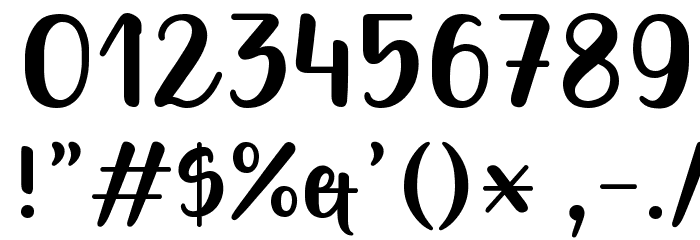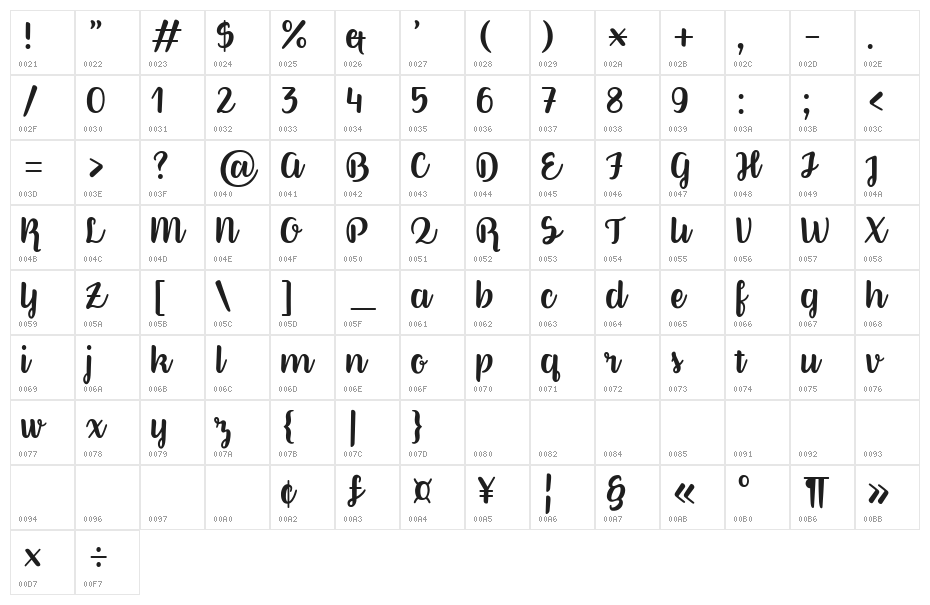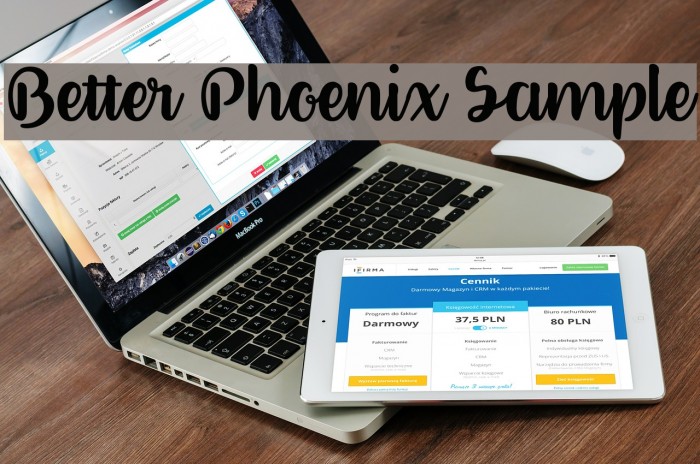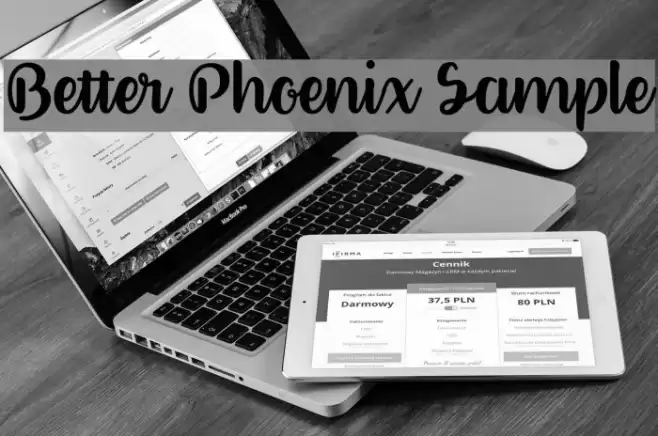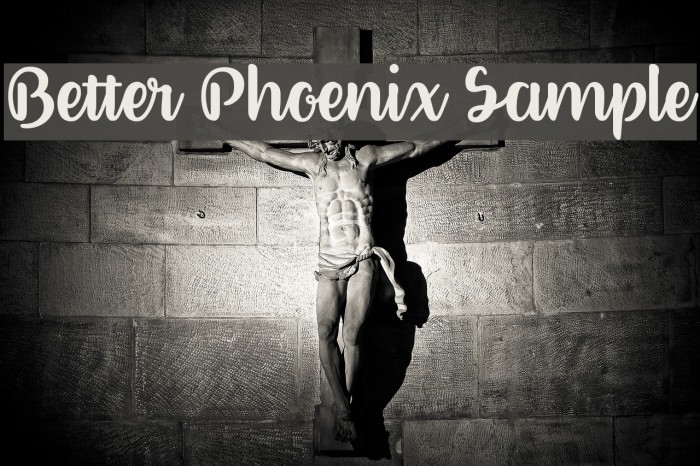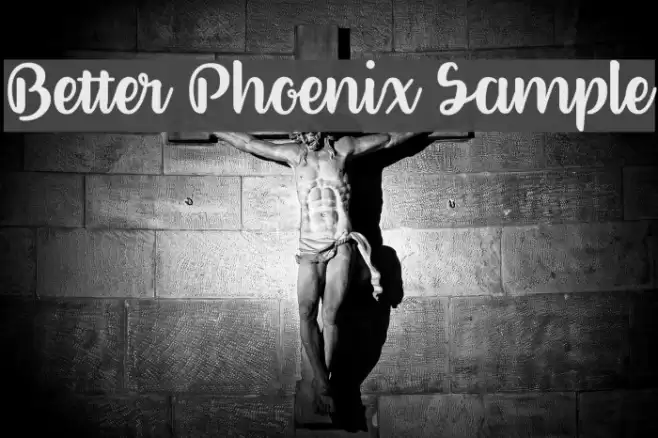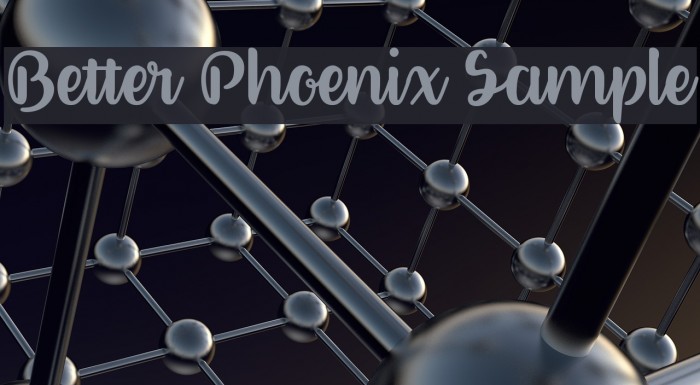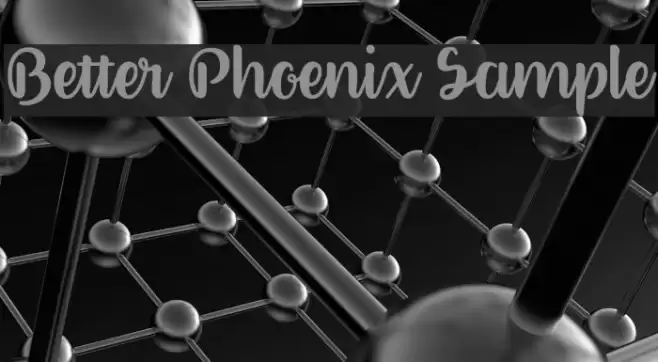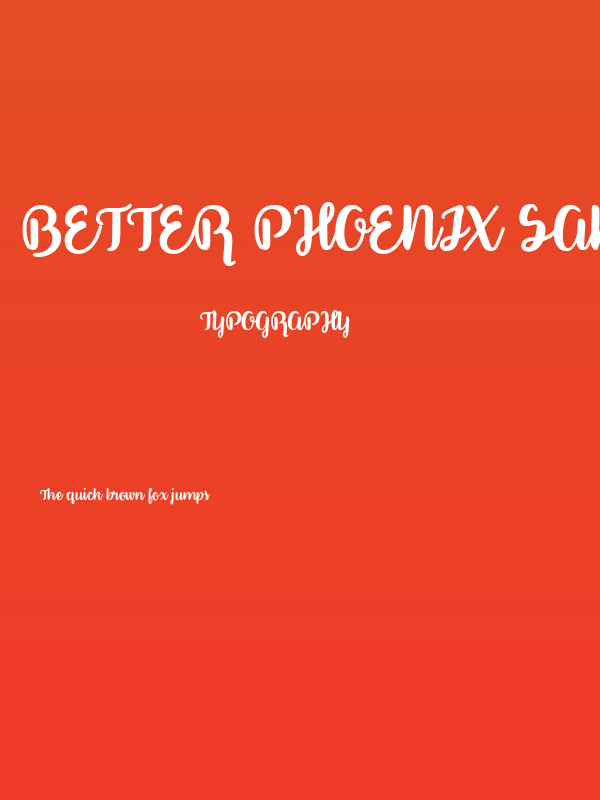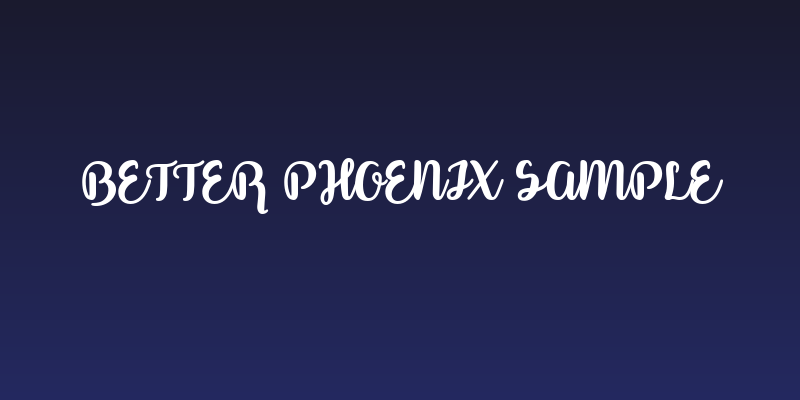
Better Phoenix Sample Font
Better Phoenix Sample Description
This font features a lively and flowing script style, characterized by its bold and smooth curves. The uppercase letters are elegantly connected, while the lowercase letters maintain a consistent rhythm with a slight slant, enhancing its handwritten appeal. The numerals are rounded and harmonize well with the overall design. Special characters are thoughtfully integrated, maintaining the font's cohesive look. Its bold strokes and playful nature make it ideal for projects that require a personal touch or a sense of elegance.